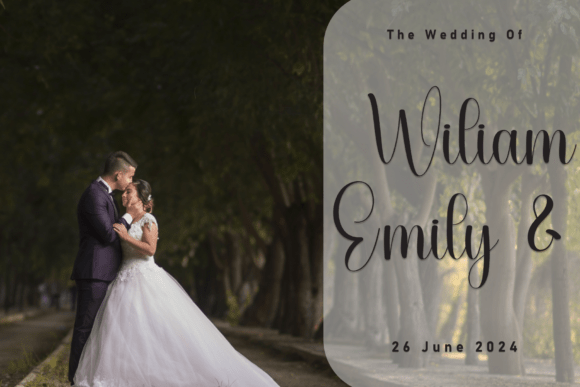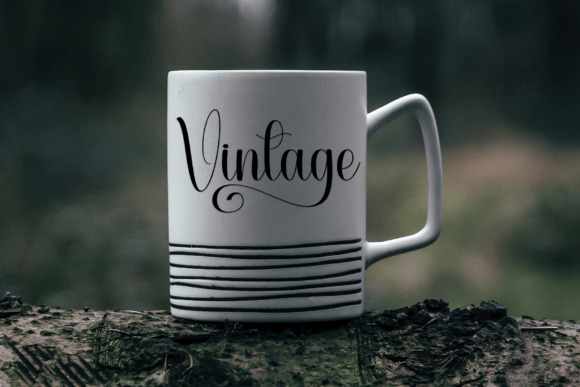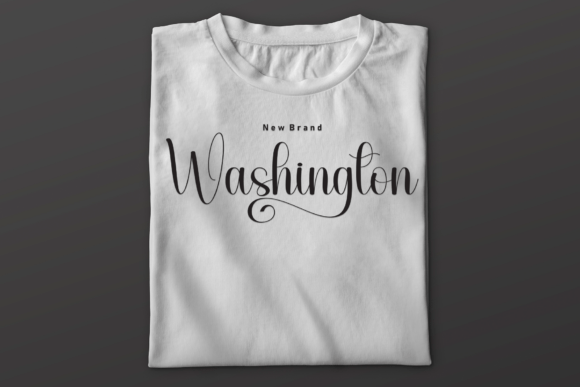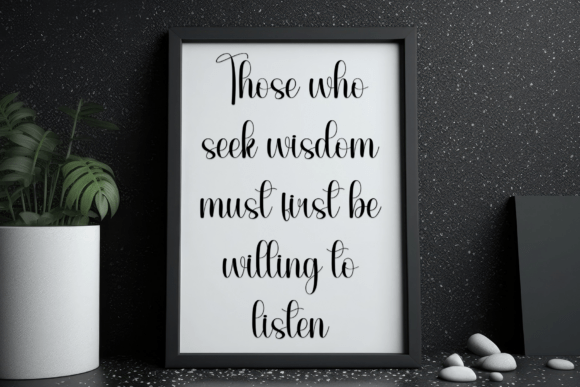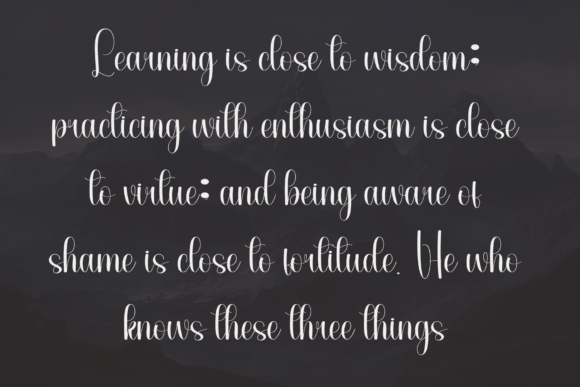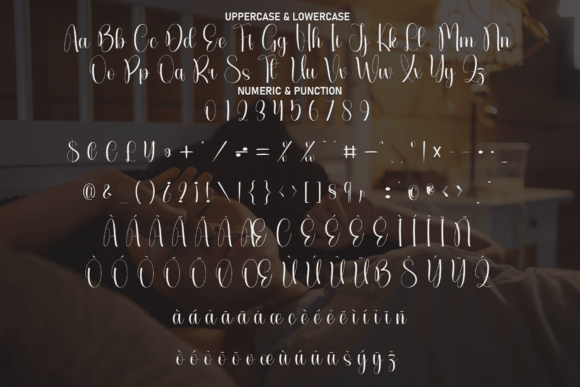
Introducing Goodnight Font: The Elegant and Playful Script Font for Your Creative Projects
Are you a designer or crafter looking for a font that can add a touch of elegance and playfulness to your creative projects? Look no further than Goodnight Font, a stylish handwritten script font that is sure to capture your audience’s attention. With its flowing curves and natural rhythm, Goodnight Font brings a personal and charming touch to invitations, branding, and social media.
The Characteristics of Goodnight Font
Goodnight Font is a beautifully designed script font that boasts a range of characteristics that make it perfect for a variety of creative projects. Some of its key features include:
- Flowing Curves: Goodnight Font features flowing curves that give it a natural and elegant feel. The curves are smooth and fluid, making it perfect for creating beautiful and sophisticated designs.
- Handwritten Script: Goodnight Font is a handwritten script font, which gives it a personal and charming touch. The font is designed to look like it was written by hand, making it perfect for creating invitations, greeting cards, and other personal designs.
- Playful and Elegant: Goodnight Font strikes the perfect balance between playfulness and elegance. It’s playful enough to add a touch of whimsy to your designs, yet elegant enough to bring sophistication and refinement.
Uses for Goodnight Font
Goodnight Font is a versatile font that can be used for a wide range of creative projects. Some of the most popular uses for Goodnight Font include:
- Invitations: Goodnight Font is perfect for creating beautiful and elegant invitations for weddings, parties, and other special occasions.
- Branding: Goodnight Font can be used to create a unique and memorable brand identity for businesses and organizations.
- Social Media: Goodnight Font can be used to create eye-catching and engaging social media graphics, including posts, stories, and ads.
- Crafting: Goodnight Font is also popular among crafters, who use it to create beautiful and personalized designs for their craft projects.
Benefits of Using Goodnight Font
There are many benefits to using Goodnight Font in your creative projects. Some of the most significant advantages include:
- Unique and Memorable: Goodnight Font is a unique and memorable font that can help your designs stand out from the crowd.
- Elegant and Sophisticated: Goodnight Font brings an air of elegance and sophistication to your designs, making it perfect for high-end brands and luxury products.
- Easy to Read: Goodnight Font is easy to read, even at small sizes, making it perfect for use in a variety of applications.
- Versatile: Goodnight Font is a versatile font that can be used for a wide range of creative projects, from invitations and branding to social media and crafting.
Tips for Using Goodnight Font
Here are a few tips for using Goodnight Font in your creative projects:
- Use it Sparingly: Goodnight Font is a bold and elegant font, so it’s best to use it sparingly to avoid overwhelming your designs.
- Pair it with Other Fonts: Goodnight Font can be paired with other fonts to create a unique and interesting contrast.
- Experiment with Colors: Goodnight Font looks great in a variety of colors, so don’t be afraid to experiment and find the perfect color for your design.
Goodnight Font is a beautiful and elegant script font that is perfect for designers and crafters looking to add a touch of sophistication and playfulness to their creative projects. With its flowing curves and natural rhythm, Goodnight Font brings a personal and charming touch to invitations, branding, and social media. Whether you’re creating a wedding invitation, a brand identity, or a social media graphic, Goodnight Font is sure to make your design stand out from the crowd.